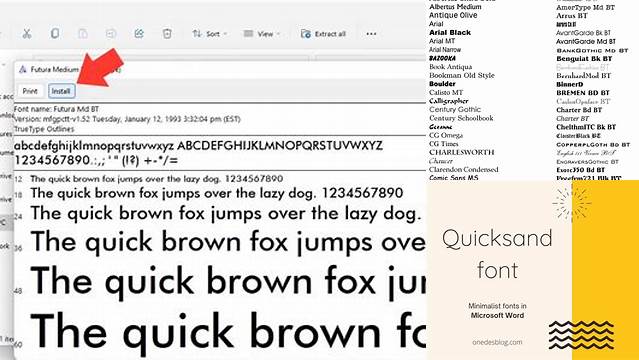
How To Use Thin Fonts In MS Word For A Sleek Design
Choosing the right font can significantly impact the readability and overall aesthetic of your Microsoft Word documents. Among the myriad font options available, thin fonts offer a sleek and modern look, perfect for projects that require a touch of elegance and sophistication. However, using thin fonts effectively requires careful consideration of various factors, including font selection, font size, and context. In this comprehensive guide, we'll dive deep into the world of thin fonts in MS Word, exploring their benefits, potential drawbacks, and best practices for implementation. Whether you're crafting a professional report, designing a stylish resume, or simply aiming to enhance your document's visual appeal, understanding the nuances of thin fonts is crucial. So, let's embark on this journey to master the art of using thin fonts in MS Word, ensuring your documents not only convey information effectively but also leave a lasting impression.
What are Thin Fonts?
Thin fonts, also known as light fonts, are characterized by their narrow strokes and delicate appearance. Unlike their bolder counterparts, thin fonts possess a minimalist aesthetic, making them ideal for designs that require a clean and modern look. The defining characteristic of thin fonts is their low stroke weight, which gives them a lighter, more airy feel compared to regular or bold fonts. This delicate nature can add a touch of elegance and sophistication to your documents, making them visually appealing and professional. However, the very attribute that makes them attractive – their thinness – also poses a challenge. If not used correctly, thin fonts can become difficult to read, especially in smaller sizes or against certain backgrounds. Therefore, understanding the nuances of thin fonts and knowing when and how to use them is essential for effective communication.
When we talk about thin fonts in the context of Microsoft Word, we're essentially referring to fonts that have a very light or extra-light weight. These fonts are designed to be visually subtle, making them suitable for headings, subheadings, or body text when a minimalist look is desired. Some popular examples of thin fonts that work well in MS Word include Lato Light, Open Sans Light, Roboto Thin, and Helvetica Light. Each of these fonts has its own unique characteristics, but they all share the common trait of being lightweight and visually delicate. Choosing the right thin font for your project involves considering the overall tone and style of your document, as well as the specific context in which the font will be used. For instance, a formal business report might benefit from the clean lines of Helvetica Light, while a more creative project could leverage the modern feel of Roboto Thin. The key is to select a font that not only looks good but also ensures readability and clarity.
The appeal of thin fonts lies in their ability to create a sense of sophistication and modernity. They can make your text appear less cluttered and more streamlined, which is particularly useful in designs that aim for a minimalist aesthetic. In the digital age, where visual appeal plays a significant role in capturing attention, thin fonts have become increasingly popular in web design, graphic design, and, of course, document creation. However, it's crucial to remember that the effectiveness of a thin font is heavily dependent on its proper application. Factors such as font size, line spacing, and contrast with the background all play a crucial role in ensuring that the font remains legible and doesn't strain the reader's eyes. In the following sections, we'll explore these factors in detail, providing you with practical tips and best practices for using thin fonts effectively in MS Word.
Advantages of Using Thin Fonts
Thin fonts offer a unique set of advantages that can enhance the visual appeal and readability of your documents when used correctly. These advantages stem from their inherent design characteristics, which lend a sense of modernity, elegance, and sophistication to any text. One of the primary benefits of thin fonts is their clean and modern aesthetic. In a world where visual design plays a crucial role in communication, the sleek and minimalist look of thin fonts can make your documents stand out. They convey a sense of professionalism and attention to detail, which is particularly valuable in business contexts. Whether you're creating a presentation, writing a report, or designing a brochure, thin fonts can help you project a contemporary image.
Another significant advantage of thin fonts is their ability to create visual hierarchy. By using thin fonts for headings, subheadings, or even body text, you can establish a clear distinction between different sections of your document. This is especially useful in longer documents where organization and readability are paramount. Thin fonts can provide a subtle contrast to bolder fonts used for emphasis, guiding the reader's eye through the text in a logical and intuitive manner. For example, you might use a bold font for the main title, a regular font for the subheadings, and a thin font for the body text to create a visually appealing and well-structured document. This technique not only enhances the overall aesthetic but also improves the reader's comprehension by making it easier to navigate the content.
Thin fonts also excel in minimalist designs. If you're aiming for a clean and uncluttered look, thin fonts are an excellent choice. Their delicate strokes and lightweight appearance make them ideal for projects that prioritize simplicity and clarity. In designs where less is more, thin fonts can help you achieve a sophisticated and understated elegance. This is particularly relevant in fields such as graphic design, web design, and branding, where minimalism is often a key design principle. By using thin fonts sparingly and thoughtfully, you can create a powerful visual impact without overwhelming the viewer. Furthermore, thin fonts can be particularly effective in digital displays. Their clean lines and minimalist aesthetic translate well to screens, making them a popular choice for websites, e-books, and other digital content. When used in conjunction with appropriate spacing and contrast, thin fonts can enhance the readability of text on screens, reducing eye strain and improving the overall user experience. This is especially important in an age where a significant portion of our reading is done on digital devices.
Potential Drawbacks of Using Thin Fonts
While thin fonts offer several advantages, it's crucial to be aware of their potential drawbacks to avoid common pitfalls. The very characteristic that makes them appealing – their thinness – can also be a source of problems if not handled carefully. One of the primary challenges associated with thin fonts is their readability, especially at smaller sizes. The delicate strokes of thin fonts can become difficult to discern when the font size is too small, leading to eye strain and a frustrating reading experience. This issue is exacerbated in print, where the fine details of the font may not be rendered clearly. Therefore, it's essential to choose an appropriate font size when using thin fonts, ensuring that the text remains legible without requiring the reader to squint or strain their eyes. A general rule of thumb is to use thin fonts at larger sizes, particularly for headings and subheadings, and to avoid using them for body text in documents that will be printed.
Another significant drawback of thin fonts is their dependence on high contrast. Thin fonts require a strong contrast between the text color and the background color to be easily readable. If the contrast is too low, the text may appear washed out or faded, making it difficult to distinguish the letters from the background. This is particularly problematic on screens with poor color calibration or in environments with low lighting. To mitigate this issue, always ensure that there is sufficient contrast between your text and background. A good practice is to use dark thin fonts on a light background or vice versa. Avoid using thin fonts in situations where the contrast is limited, such as light grey text on a white background, as this can significantly reduce readability. Additionally, consider the font weight and spacing when working with thin fonts. Due to their delicate nature, thin fonts may appear too faint or blend into the background if the font weight is too light or the spacing is too tight. To compensate for this, you may need to increase the font weight slightly or adjust the letter spacing and line height to improve readability. Experiment with different settings to find the optimal balance between visual appeal and legibility. For instance, increasing the letter spacing can give the letters more room to breathe, while adjusting the line height can prevent the text from feeling cramped.
Moreover, the context of use plays a crucial role in determining the suitability of thin fonts. While thin fonts can add a touch of elegance and sophistication to certain documents, they may not be appropriate for all situations. For example, in documents that require a high degree of readability, such as legal contracts or technical manuals, bolder and more legible fonts are generally preferred. Thin fonts may also not be the best choice for documents intended for a wide audience, as some readers may find them challenging to read. Consider the purpose of your document and the needs of your audience when deciding whether to use thin fonts. If readability is a primary concern, it may be wise to opt for a more robust font that ensures clarity and ease of reading.
In conclusion, thin fonts can be a powerful tool for enhancing the visual appeal of your Microsoft Word documents. Their clean, modern aesthetic can add a touch of elegance and sophistication to your text, making your documents stand out from the crowd. However, the effective use of thin fonts requires careful consideration of various factors, including font selection, font size, spacing, and contrast. By understanding the advantages and potential drawbacks of thin fonts, and by following the best practices outlined in this guide, you can harness their aesthetic appeal without compromising readability. Remember to choose thin fonts that are legible at the intended size, use sufficient spacing to prevent the text from feeling cramped, and ensure that there is ample contrast between the text and background colors. With these guidelines in mind, you can confidently incorporate thin fonts into your documents, creating visually appealing and professional-looking results. So go ahead, experiment with different thin fonts in your next project, and see how they can elevate your document's overall design and impact.